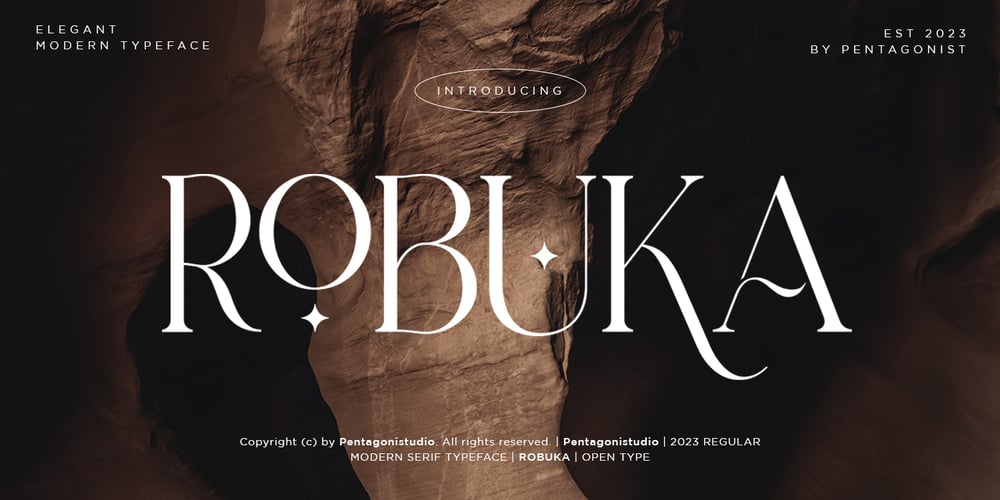
Robuka PS Font Family was designed by Burhan Adiatma and published by pentagonistudio. Robuka PS contains 1 styles and family package options. Robuka Is A Modern Serif Font with Stylistic Alternates and Ligatures.SOFTWARE REQUIREMENTS :Fonts and alternate: No special software is required they may be used in any basic program /website app that allows standard fonts That’s it, folks! You can go ahead and get cracking :)Follow My Shop For Upcoming Updates Including Additional Glyphs And Language Support. And Please Message Me If You Want Your Language Included or If There Are Any Features or Glyph Requests, Feel Free to Send me A Message.Have a Good Day!